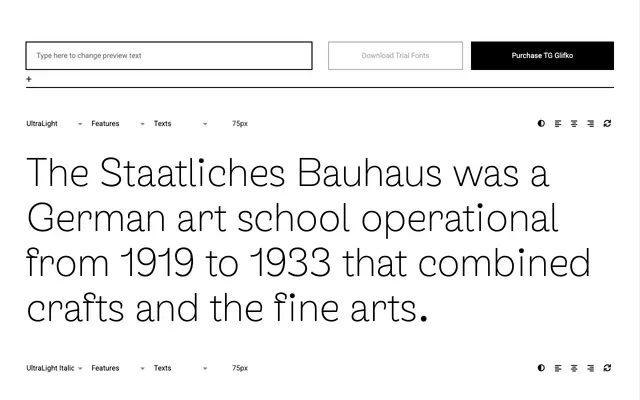
TG Glifko
Tegamitype · Iqbal Firdaus · 2020
A contemporary grotesque sans with mixed apertures that give it an unconventional, lively character across seven weights with matching italics.
Designed by Iqbal Firdaus and released in 2020, TG Glifko pairs large and small apertures within a single grotesque framework, producing a slightly irregular rhythm that distinguishes it from more neutral genre entries. Fourteen styles run from UltraLight to ExtraBold with italics throughout, and OpenType features include stylistic alternates, case-sensitive forms, fractions and superscript figures. Latin coverage extends to over 200 languages, making it viable for broad multilingual publishing and display work.
The foundry explicitly describes TG Glifko as a contemporary sans-serif grotesque, characterised by a mix of large and small apertures that give it an unusual, quirky quality distinct from neutral grotesques.